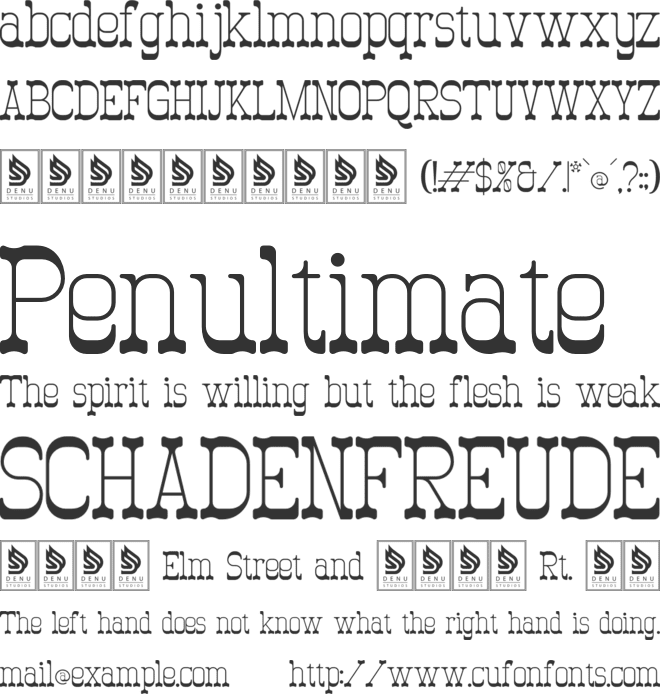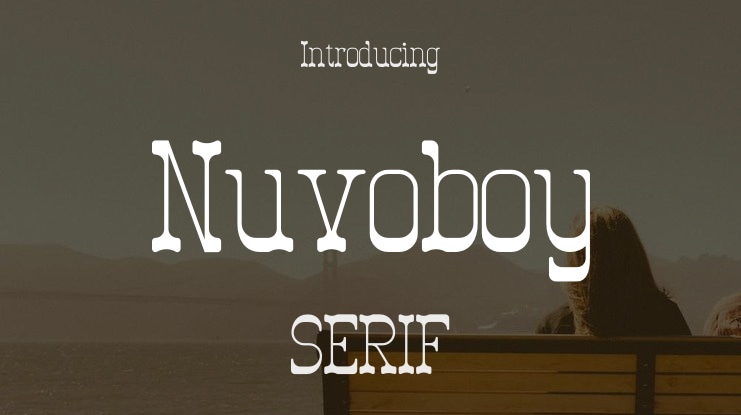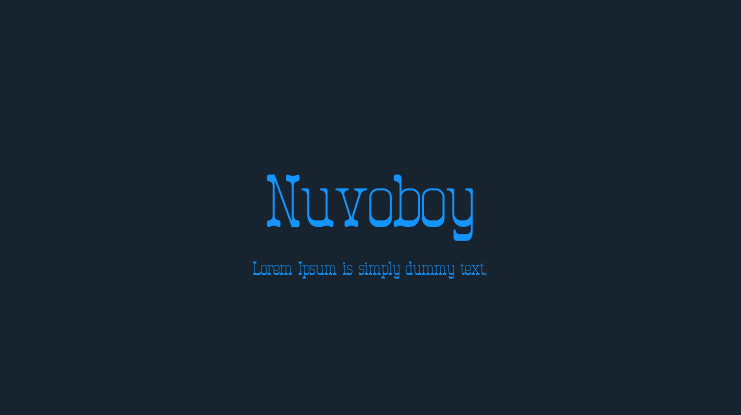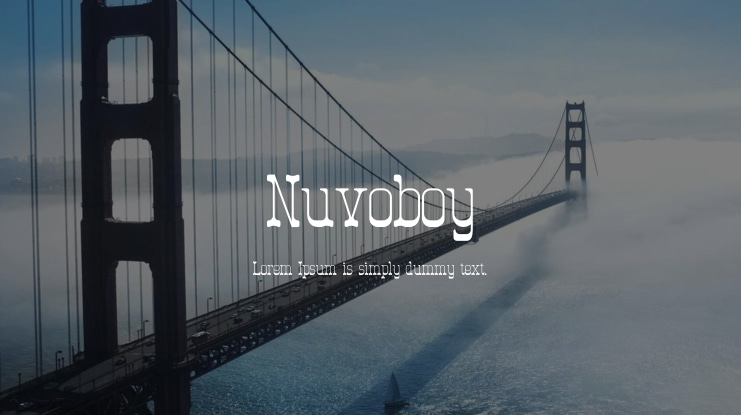
Nuvoboy | Western Slab Serif is perfect for a variety of projects including logos, branding, homeware designs, product packaging, quotes, posters, t-shirts, book covers, invitations, greeting cards, labels, photography, watermarks, special events, and more, adding a touch of Western Slab Serif style.